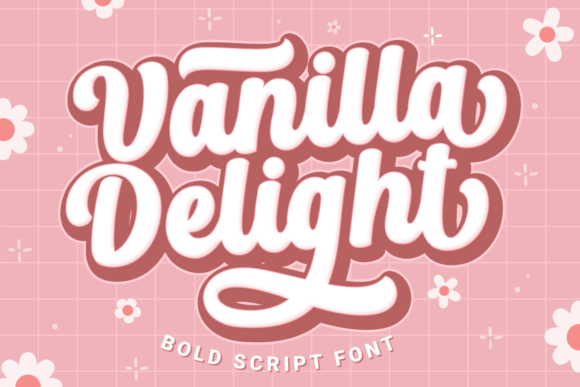
Embark on an artistic adventure with Vanilla Delight – a script font that dances with boldness and a retro touch, beckoning you to create captivating designs that transcend the ordinary. Its characters, like graceful ballerinas, strike a perfect balance, harmonizing seamlessly with an extensive range of design concepts, ensuring your creative vision takes center stage.
Unleash your inner tattoo artist and transform ordinary words into inked masterpieces. Vanilla Delight's unique flow captures the essence of free-spirited expression, allowing your tattoo designs to speak volumes. Each letter, meticulously crafted with retro charm, adds depth and soul to your designs, making them stand out as true works of art.
With Vanilla Delight, you're not simply downloading a font – you're inviting a creative partner into your design journey. Its PUA encoding grants you effortless access to a treasure trove of glyphs and swashes, empowering you to weave intricate details and flourishes into your designs. Explore the limitless possibilities and let your imagination run wild.
Vanilla Delight is a font that ignites passion, fueling your designs with energy and vibrancy. It's a font that speaks to the heart, evoking emotions and leaving an indelible mark on your audience. Embrace the allure of Vanilla Delight and unlock a world of limitless creative expression.